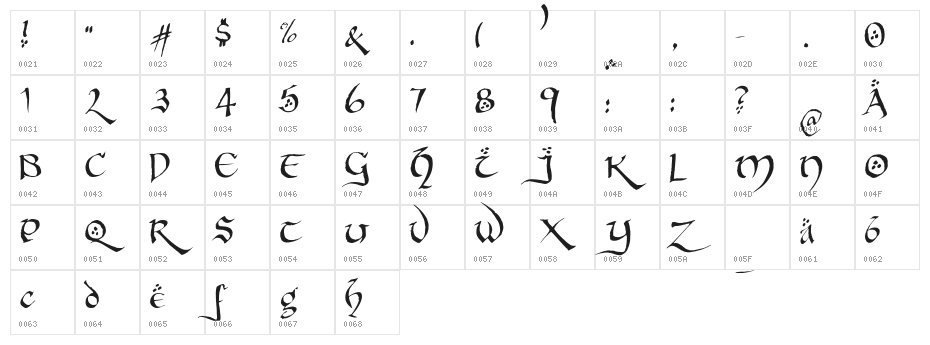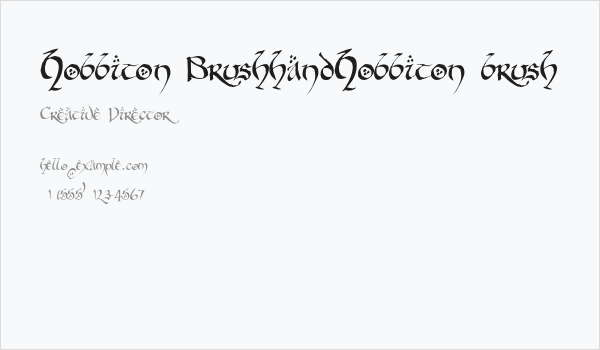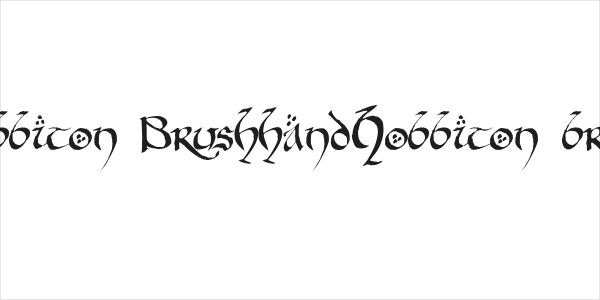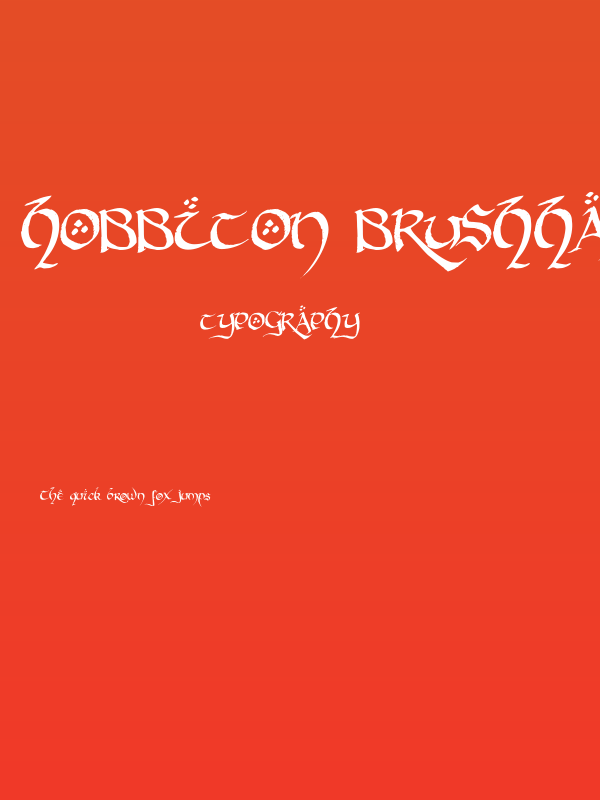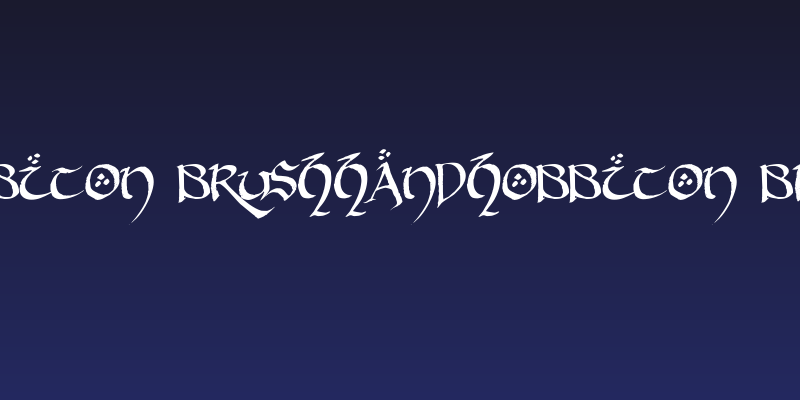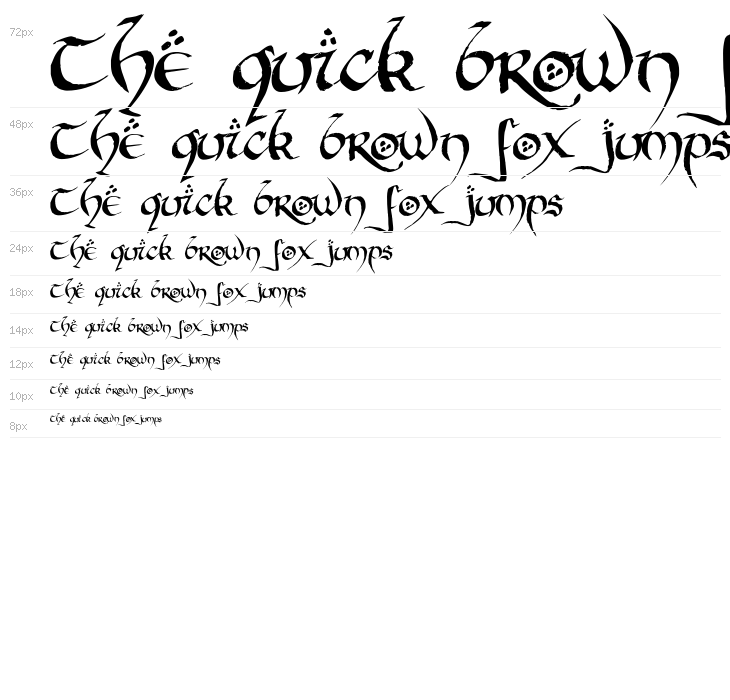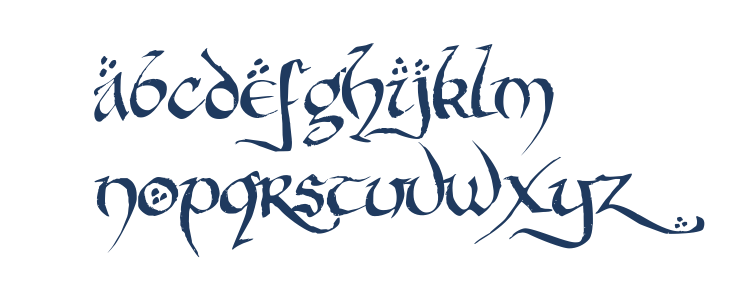
Hobbiton BrushhandHobbiton brush Font
Hobbiton BrushhandHobbiton brush Description
This font exudes a whimsical and fantastical charm, reminiscent of ancient scripts and fantasy literature. The characters are crafted with a brush-like quality, featuring elegant curves and pointed serifs that give it a mystical appearance. The uppercase letters are bold and striking, while the lowercase letters maintain a consistent flow with a slightly more delicate touch. Numbers and special characters are uniquely styled, with some incorporating decorative elements that enhance the font's magical theme. The overall design is intricate, with a hand-drawn feel that adds to its authenticity and allure.
| Overall Style | Fantasy, Decorative |
| Use Case | Headlines, Logos, Artistic projects |
| Proposed Projects | Ideal for fantasy book covers, themed event invitations, role-playing game materials, and artistic posters. |